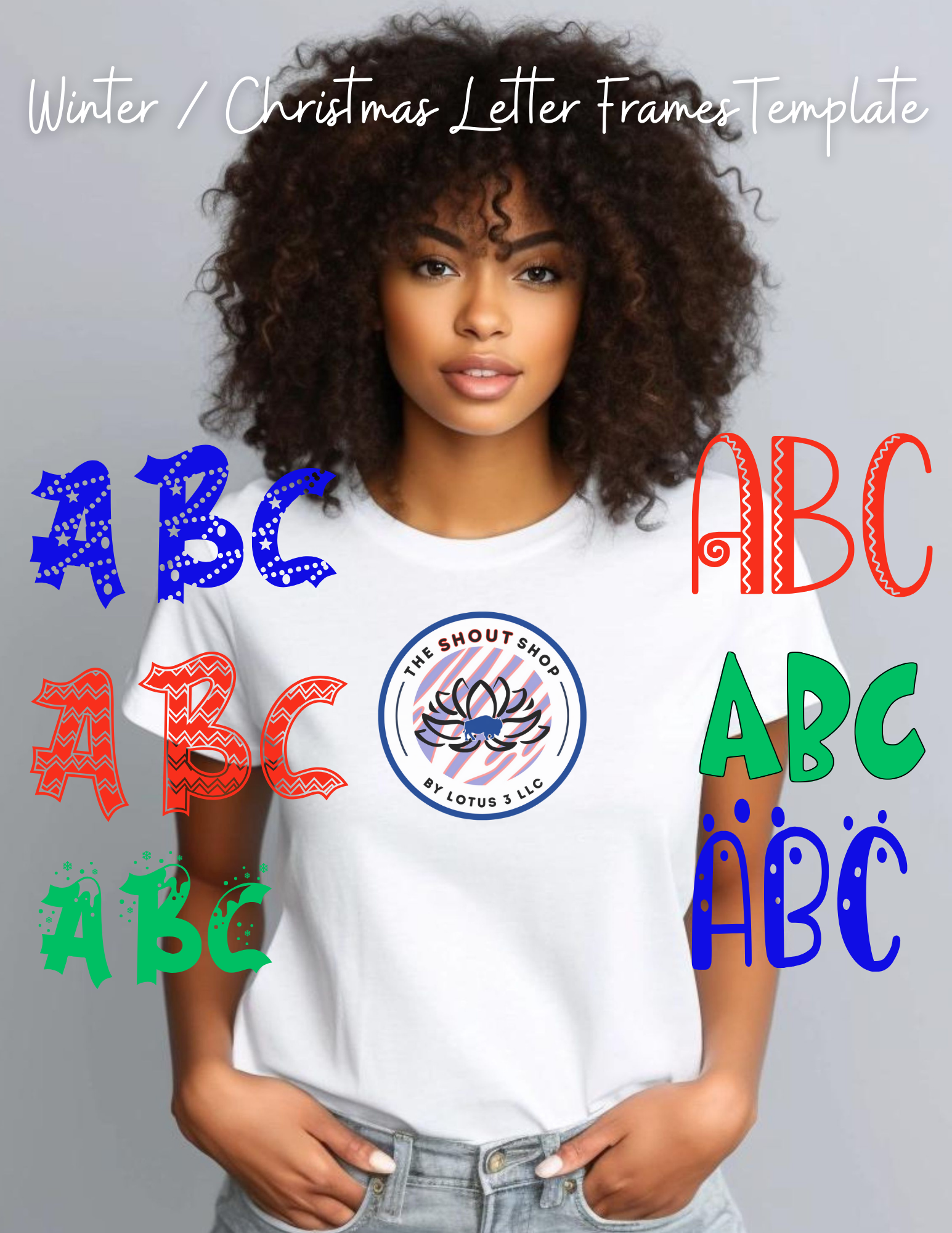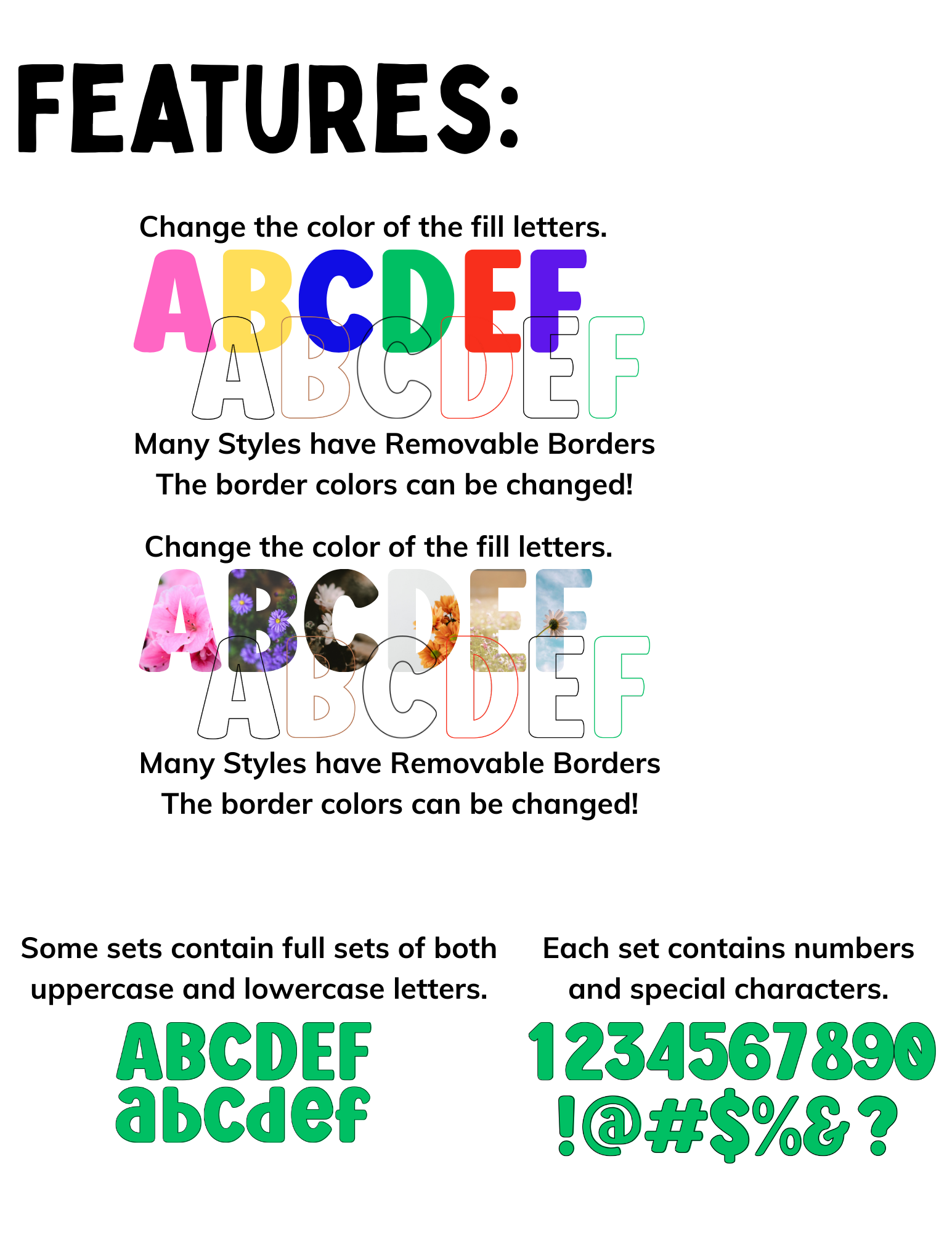
Christmas / Winter Font Canva Template Collection
This collection includes 6 holiday style fonts that are frames with the ability fill with any color or drop any photo into the letters. Many of the fonts have both upper and lowercase fonts. All sets include numbers and other symbols you might need.